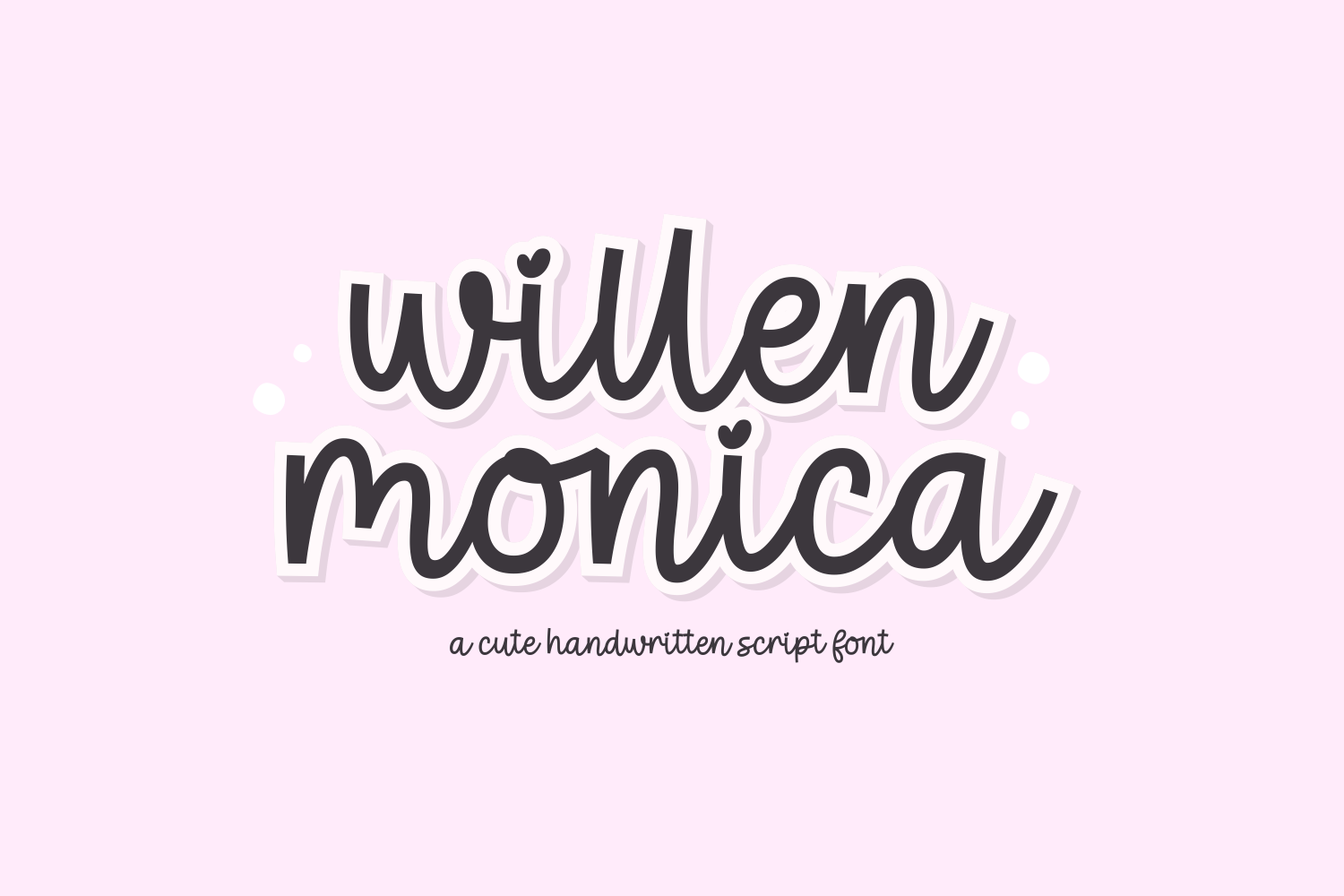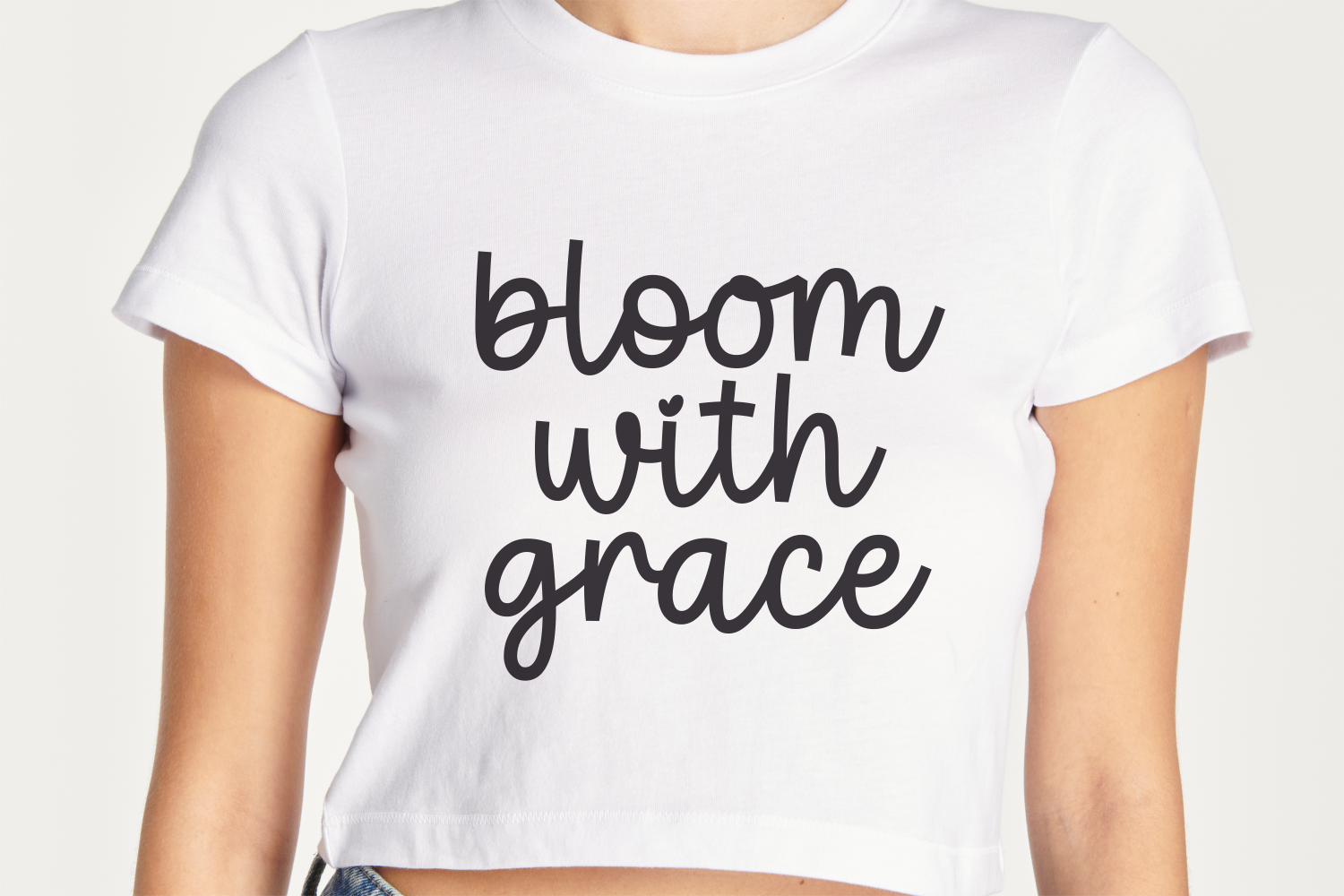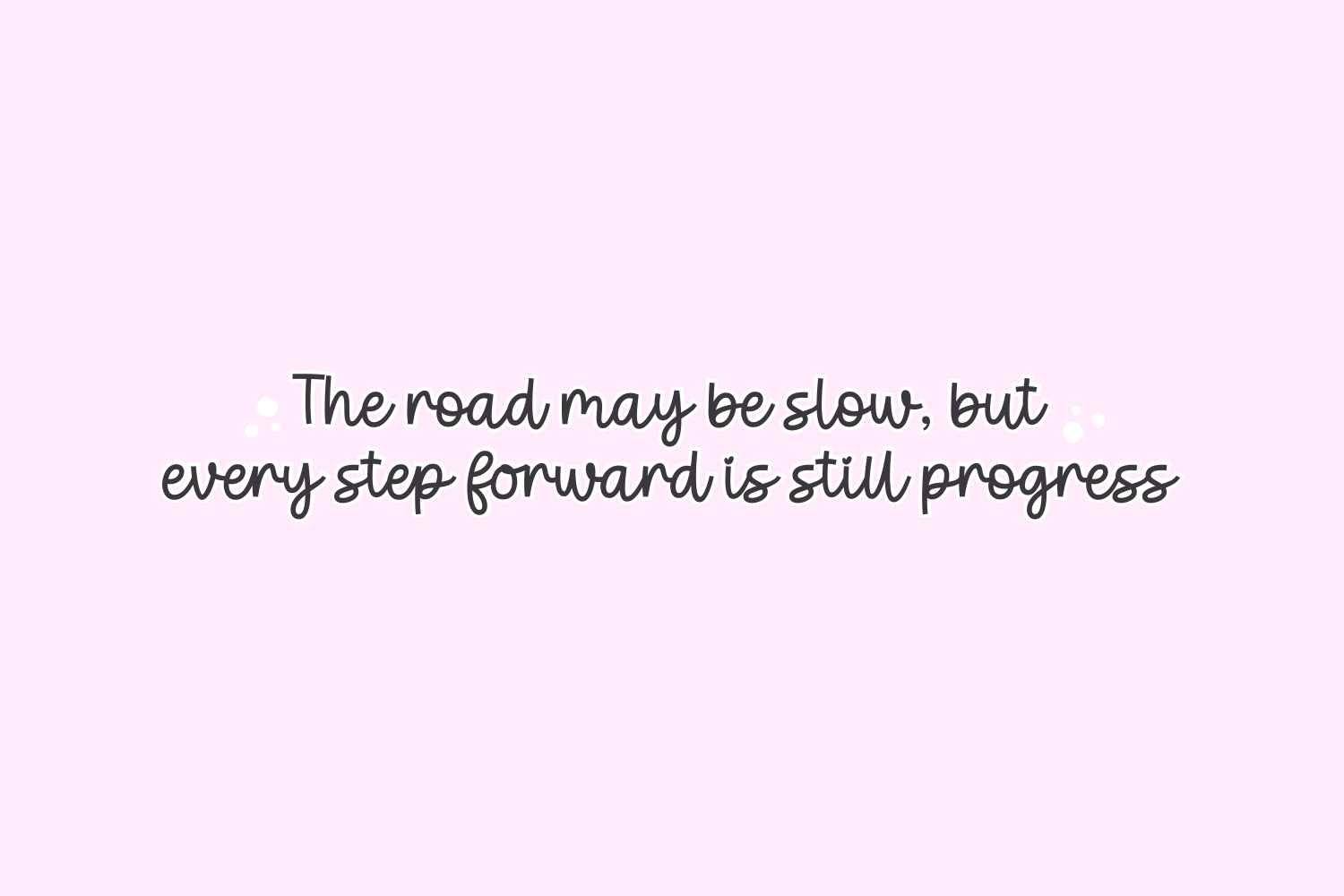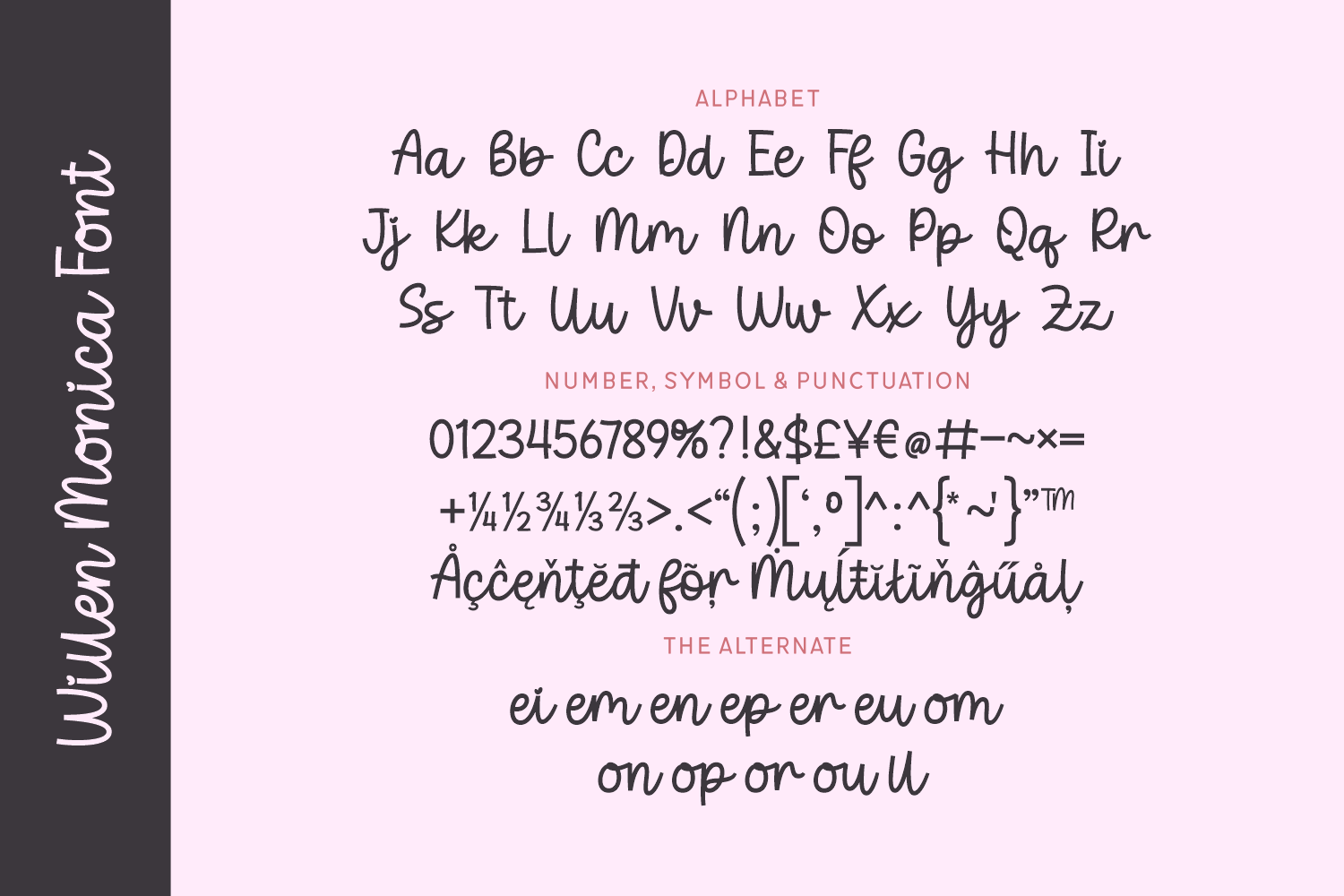
Willen Monica
Willen Monica is a cheerful and adorable handwritten script font that radiates playfulness and charm. With its rounded curves, heart-accented characters, and bubbly design, it's perfect for kids’ projects, branding, social media graphics, and fun merch designs.